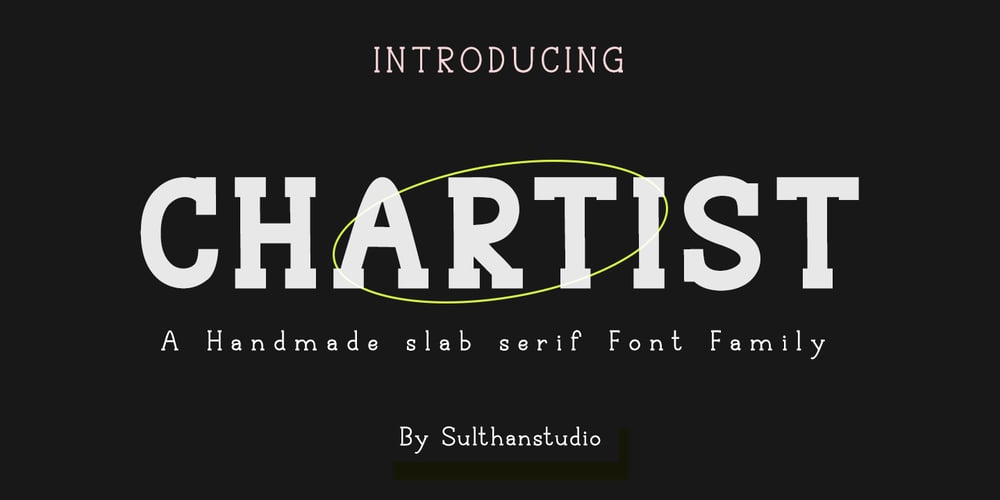
Chartist sketsa
Chartist sketsa font
Chartist sketsa Font Family was designed by Nasrullah and published by Sulthan Studio. Chartist sketsa contains 4 styles and family package options. Hi font lovers we are introducing our new product. This handmade slab serif font with aesthetic sketches with several different variants ranging from sketch, regular, bold and outline makes it versatile enough to create the look you want, very easy to use and combine.